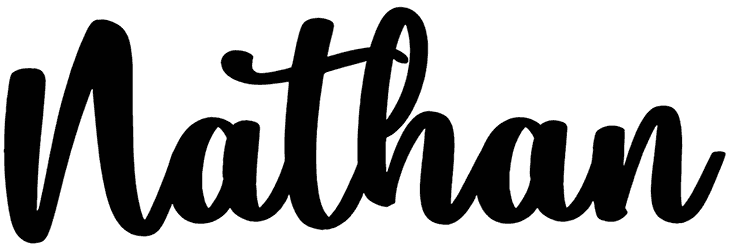
Nathan Font
If you are a designer who likes to communicate directly with the audience, you will need an original font like Nathan. Using this script font, people find your business stable, welcome, and trust it more easily.
The classic nature of this handwritten font, along with its elaborate twists, can display its relied identity while maintaining the authority and greatness of your brand. Therefore, it functions splendidly in business cards, books, posters, and brochures.